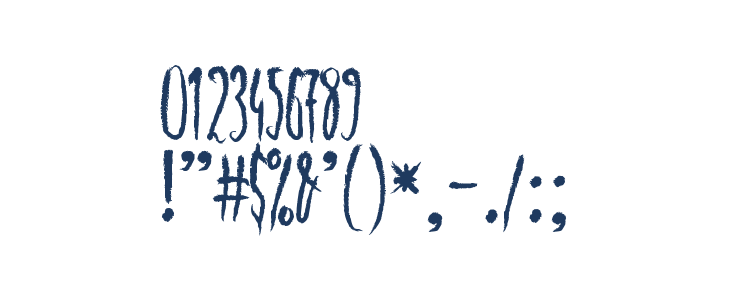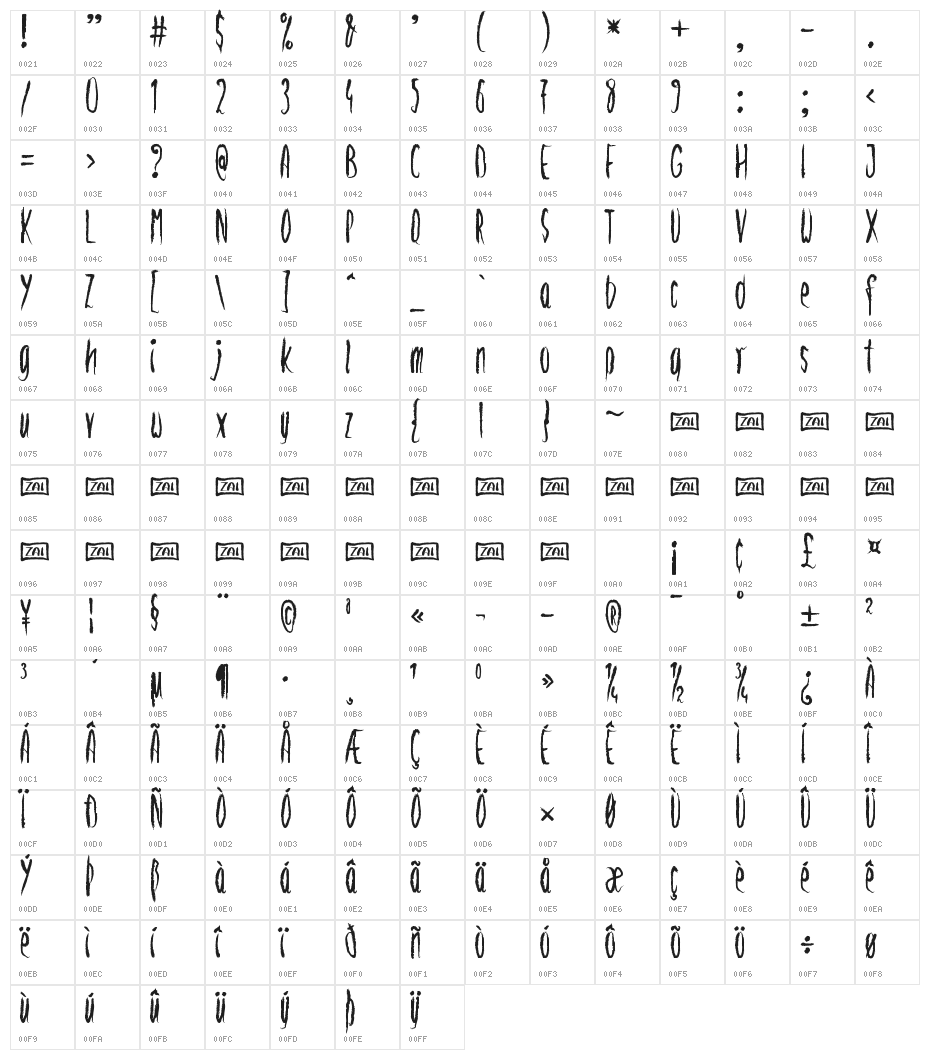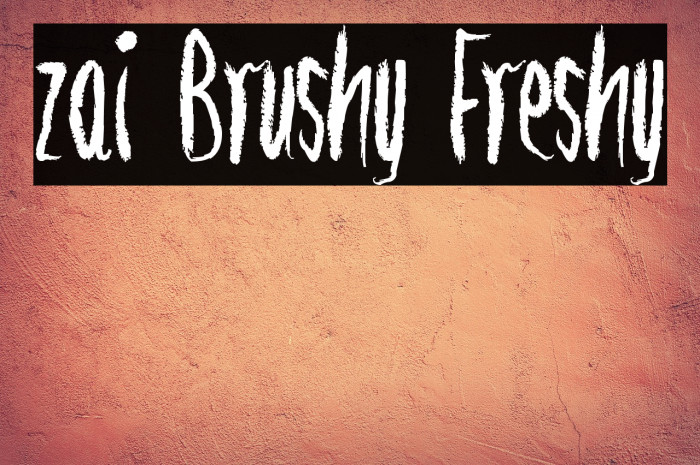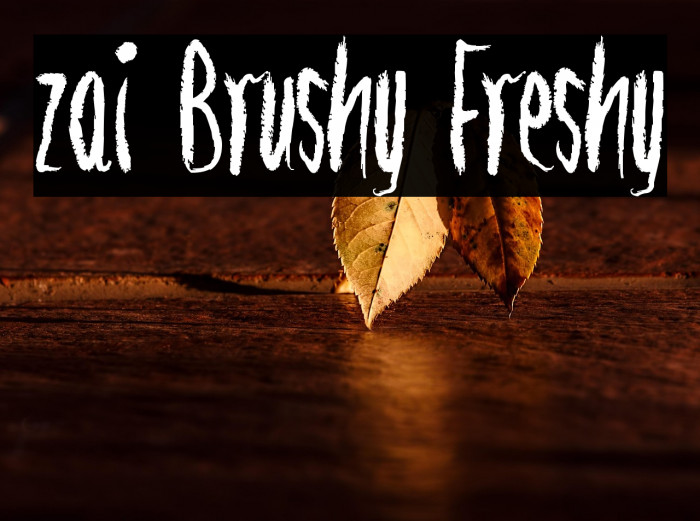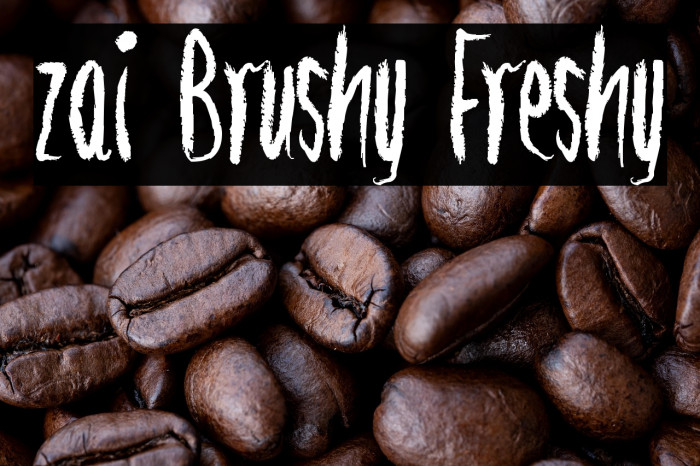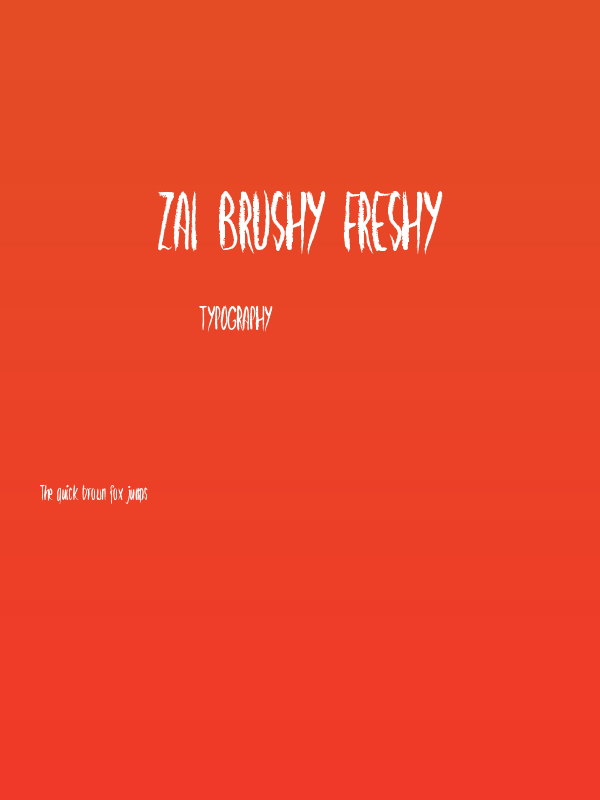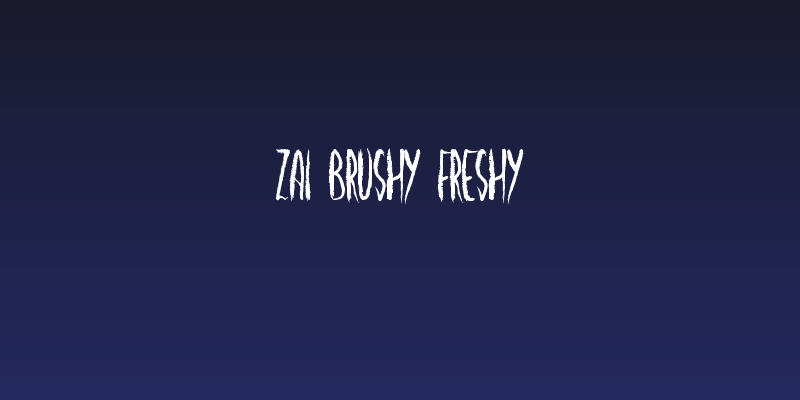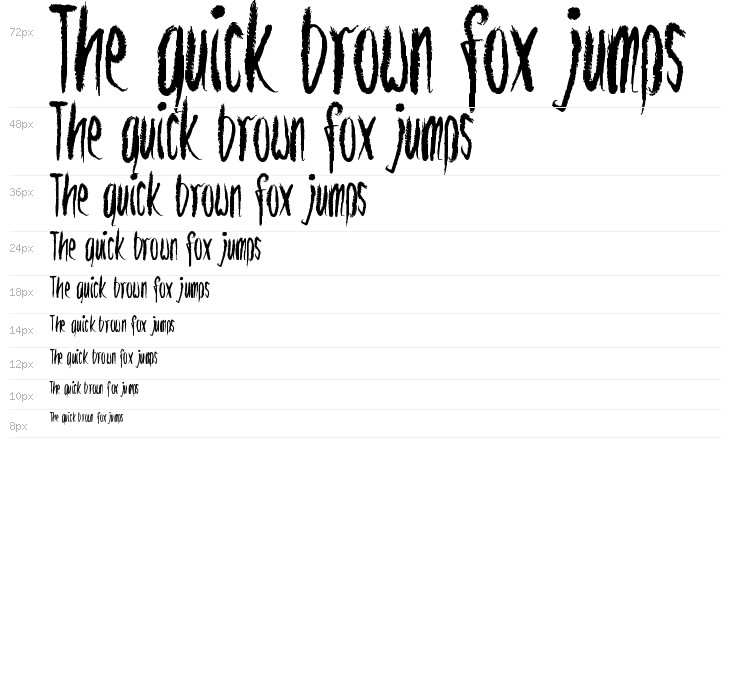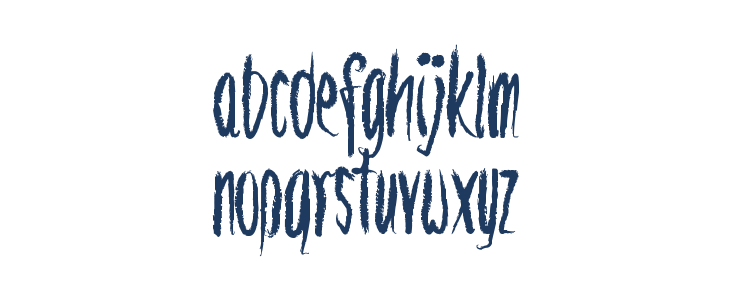
zai Brushy Freshy Font
zai Brushy Freshy Description
This font features a bold, brush-like appearance with a hand-drawn aesthetic. The strokes are uneven, giving it a dynamic and energetic feel. The uppercase and lowercase letters are tall and narrow, with a slightly irregular baseline that adds to its casual, artistic vibe. The numbers and special characters maintain this style, ensuring consistency throughout. The texture of the strokes suggests a dry brush technique, adding a tactile quality to the design.
| Proposed Projects | Ideal for creative projects such as posters, album covers, and branding that require a bold, artistic touch. |